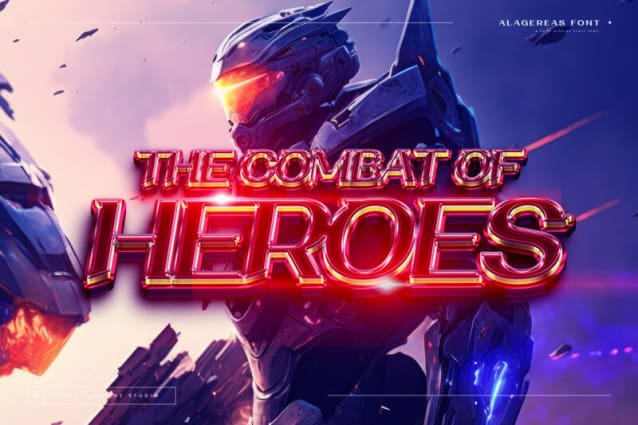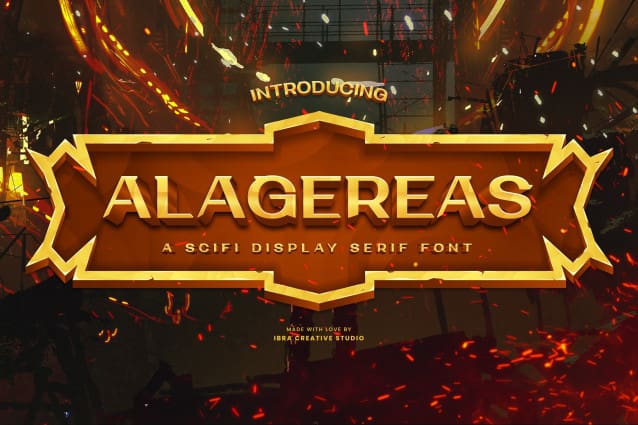
Alagereas Display Font
Alagereas Display Font, a captivating Sci-Fi Display Serif font, seamlessly blends futuristic aesthetics with timeless sophistication. Designed for maximum impact, its sleek and angular letterforms exude a sense of technological advancement and avant-garde elegance. Alagereas strikes a harmonious balance between readability and artistic expression, making it ideal for immersive digital interfaces, space-themed designs, and cutting-edge editorial layouts. The font’s meticulous detailing and precision convey a sense of otherworldly precision, while its serif elements evoke a classic charm, resulting in a typeface that transcends the boundaries of conventional sci-fi typography. Alagereas is a bold and versatile choice that transports typography into the realms of the future, embodying the essence of innovation in every character.
Alagereas Display Font is perfect for branding projects, logo, wedding designs, social media posts, advertisements, product packaging, product designs, label, photography, watermark, invitation, stationery, game, fashion and any projects.